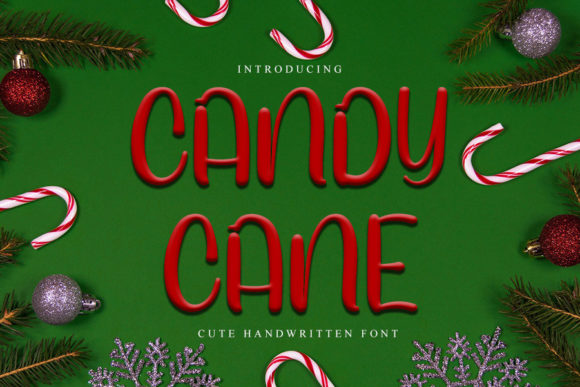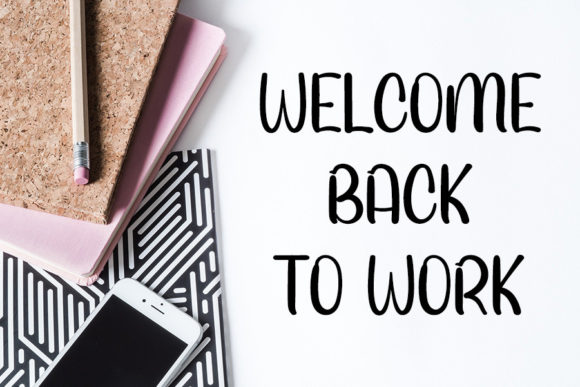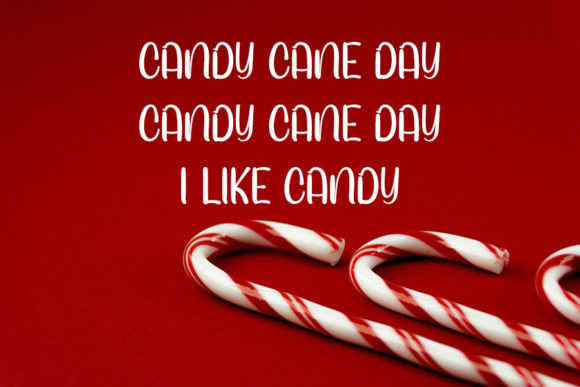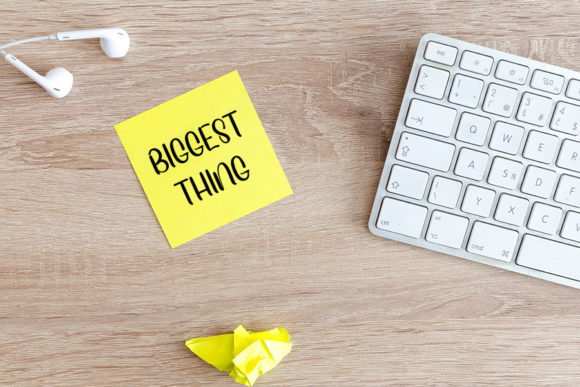
About Candy Cane Font
Candy Cane is a playful and smart-looking handwritten font. It is the ideal choice for creating eye-catching logos, branding, and quotes. Every letter has a unique and friendly touch, which will make your design come alive!